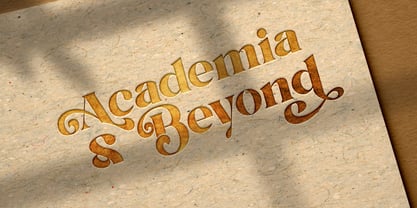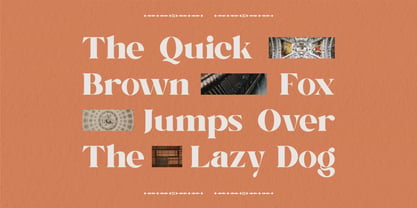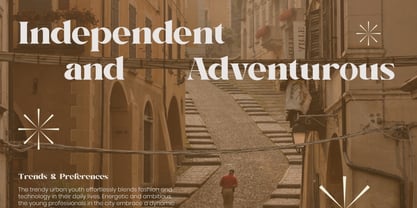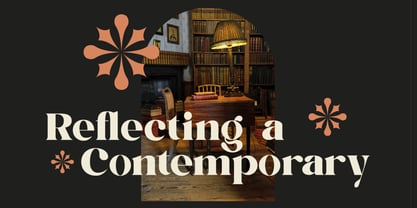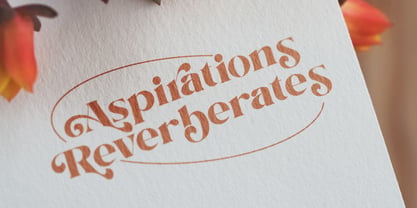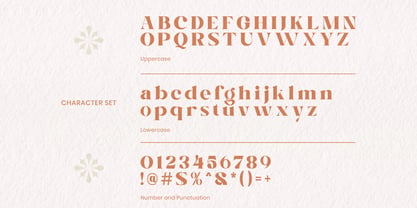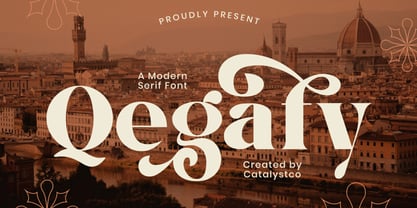
Qegafy
by Catalystco Std
The Qegafy Font Family was designed by and published by Catalystco Std. Qegafy contains 1 styles. More about this family
Qegafy is a refined modern serif typeface that fuses classic elegance with bold geometric artistry. Its sculpted letterforms feature sharp contrasts, stylish curves, and sophisticated cuts that bring both structure and flair to any composition. The result is a typeface that feels timeless yet contemporary — perfect for fashion branding, editorial layouts, packaging, and luxury design projects. Featuring uppercase and lowercase letters, numerals, and complete punctuation, Qegafy delivers precision and personality in every glyph. Whether used for headlines or refined identities, it captures a confident, artistic tone that elevates modern typography with a touch of classic charm.